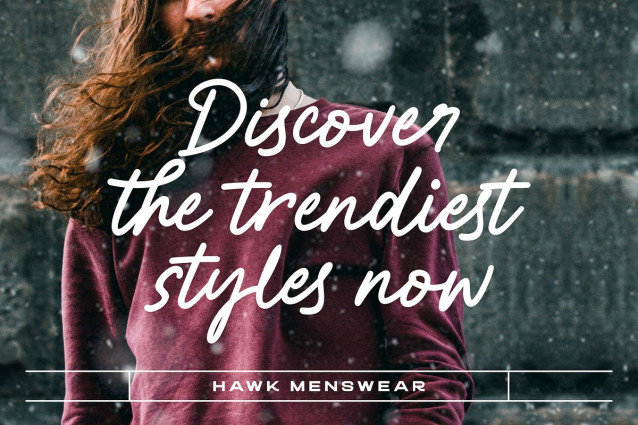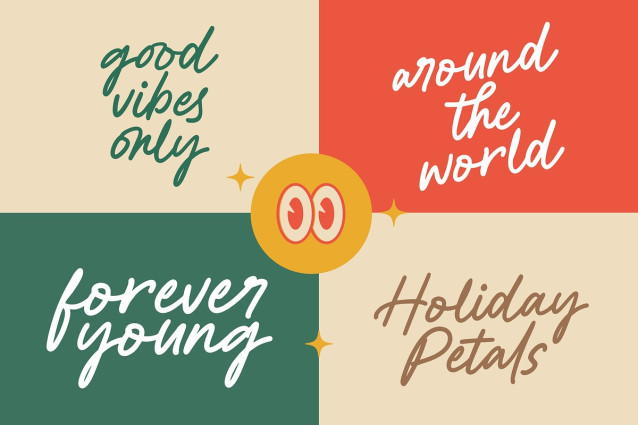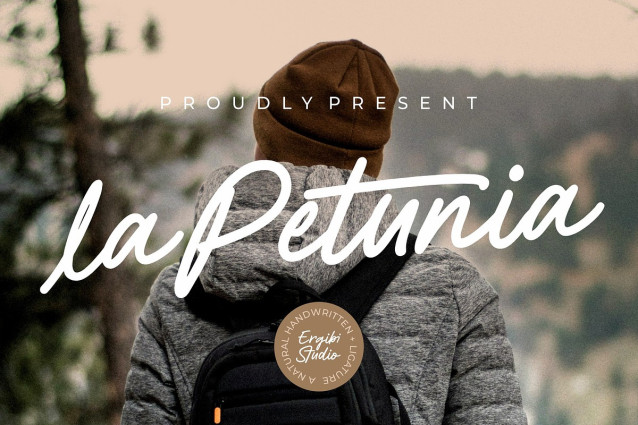
la Petunia Font
la Petunia font: represents a natural handwriting style, giving it a personal and organic touch. Each stroke is soft, fluid and natural, as if written directly by hand. Perfect for a variety of design needs such as invitations, journals, packaging and creative projects that require authenticity and a human touch. This font combines the beauty and uniqueness of handwriting with the convenience of digital use.